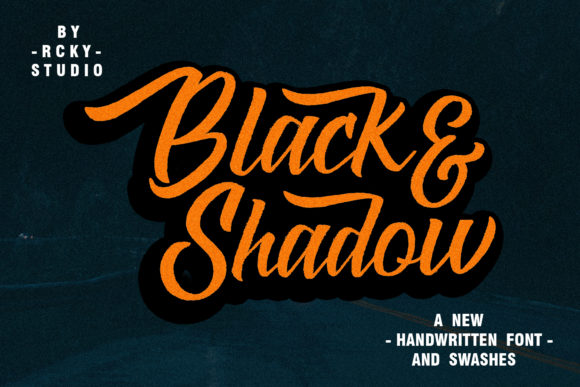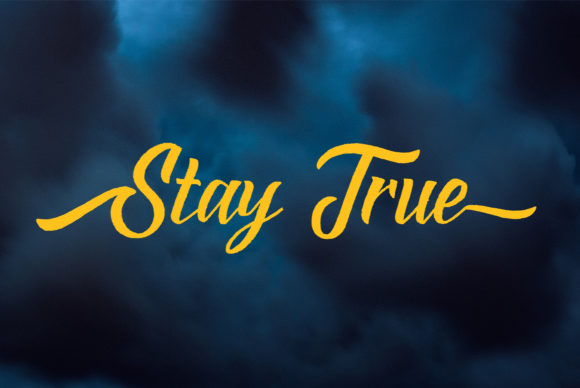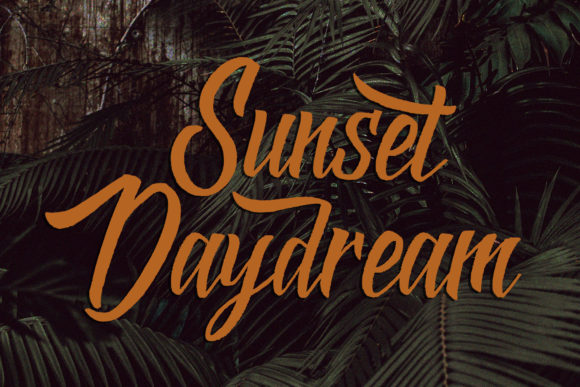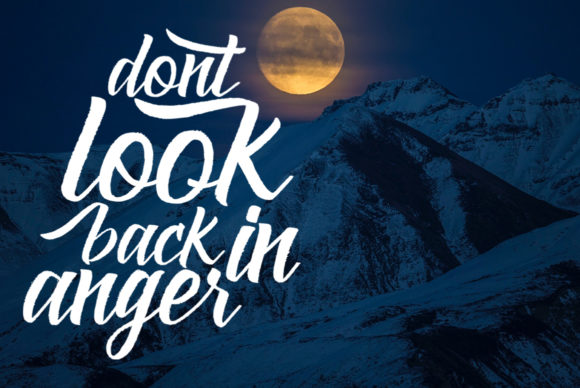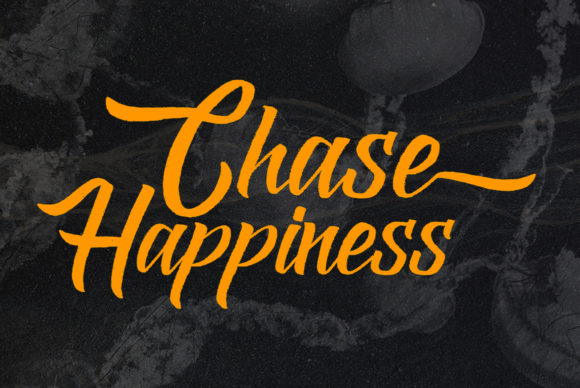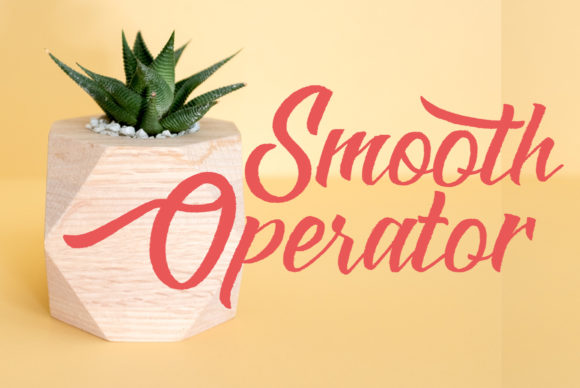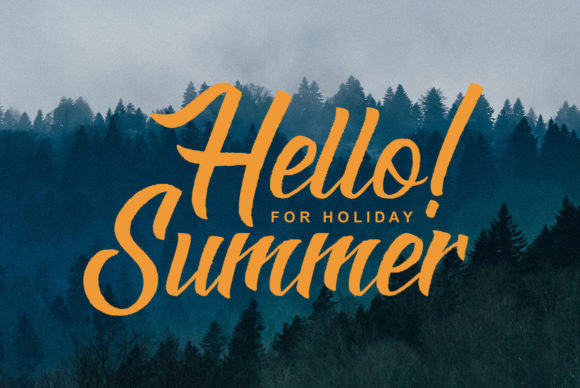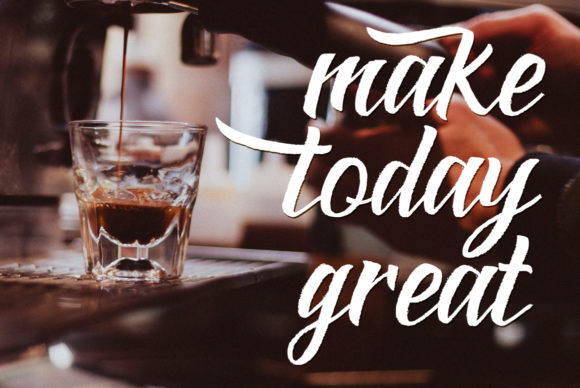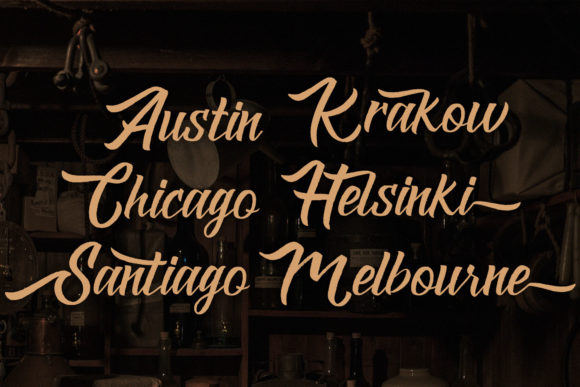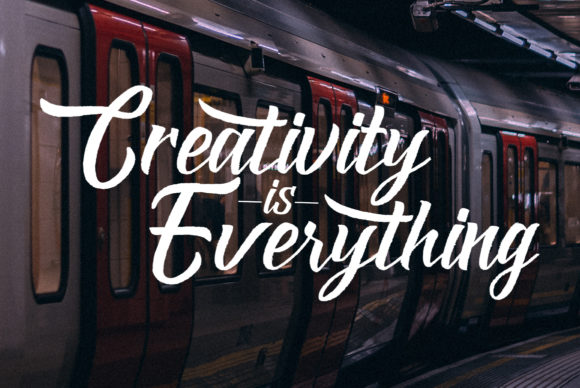
HomeScript FontsBlack & Shadow Font Script Fonts Black & Shadow Font FacebookXPinterestWhatsApp Black & Shadow Font Poster 2 Black & Shadow Font Poster 3 Black & Shadow Font Poster 4 Black & Shadow Font Poster 5 Black & Shadow Font Poster 6 Black & Shadow Font Poster 7 Black & Shadow Font Poster 8 Black & Shadow Font Poster 9 Black & Shadow Font Poster 10 About Black & Shadow Font Black & Shadow is a fun and bold handwritten font with an authentic twist. Get inspired by its vintage feel! DOWNLOAD NOW People also explored Nabilla Gamer Roster Font Rodeo Font Argenthus Script Font Hello Christmas Font Barber Font Soulmates Font Young Pineapple Font Sweetland Script Font 298 0 TagsBlack Shadow Font Previous articleSetrongell FontNext articleJenifer Font LEAVE A REPLY Cancel reply Comment: Please enter your comment! Name:* Please enter your name here Email:* You have entered an incorrect email address! Please enter your email address here Website: Save my name, email, and website in this browser for the next time I comment. Personal Use Free BD Console Personal Use Free Read more about this font Wordan Personal Use Free Read more about this font Remember Personal Use Free Read more about this font Genres Personal Use Free Read more about this font BLOG How to Cut Any Font on Cricut: Convert a Font to SVG (Free) Turn any font into a clean SVG so it cuts crisp on Cricut - a quick 3-step workflow using a free font-to-SVG tool. Fonts That Capture the Spirit of New York City Best Fonts for YouTube Videos: Make Your Thumbnails Stand Out Top 10 Handwritten Fonts That Elevate Your Designs